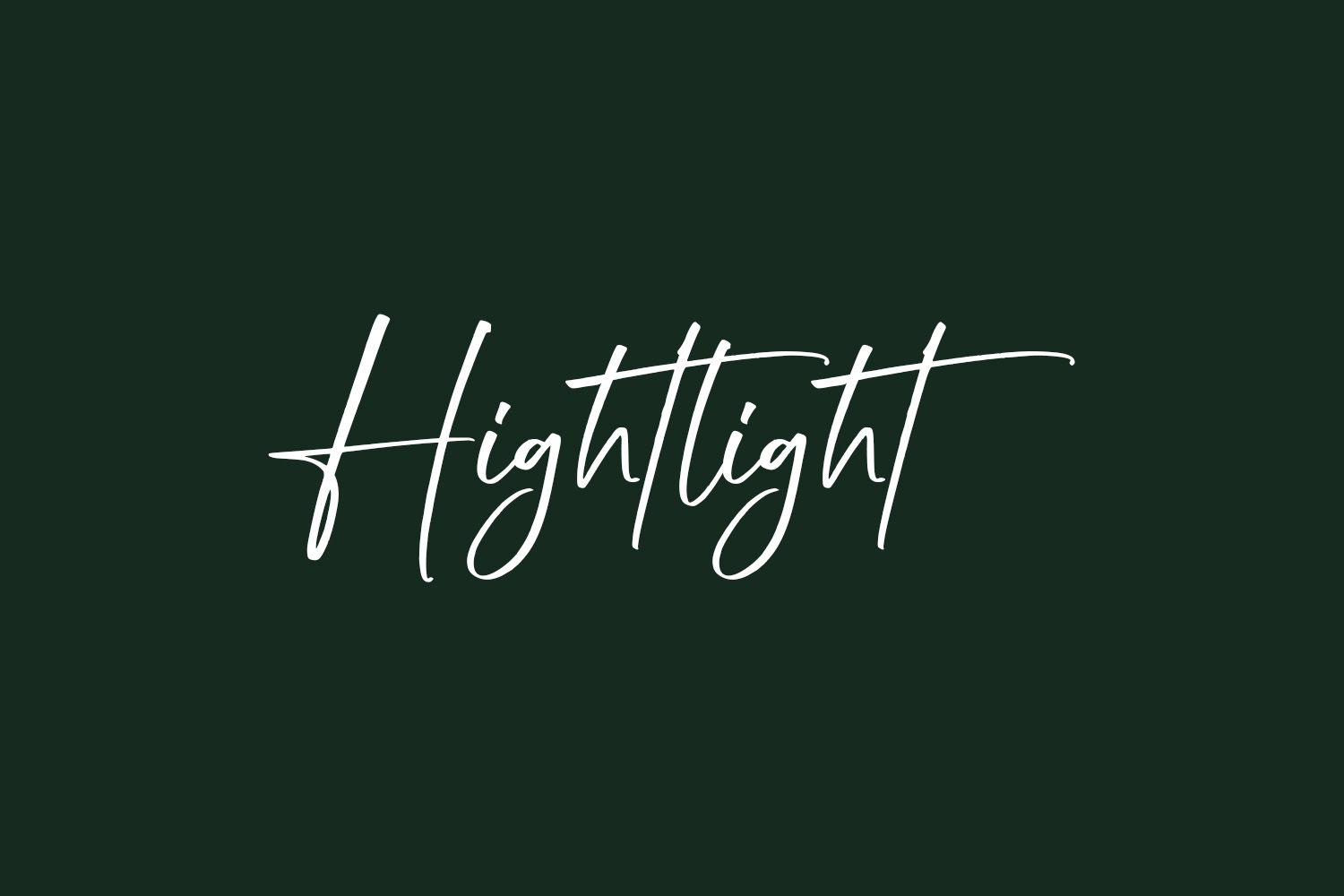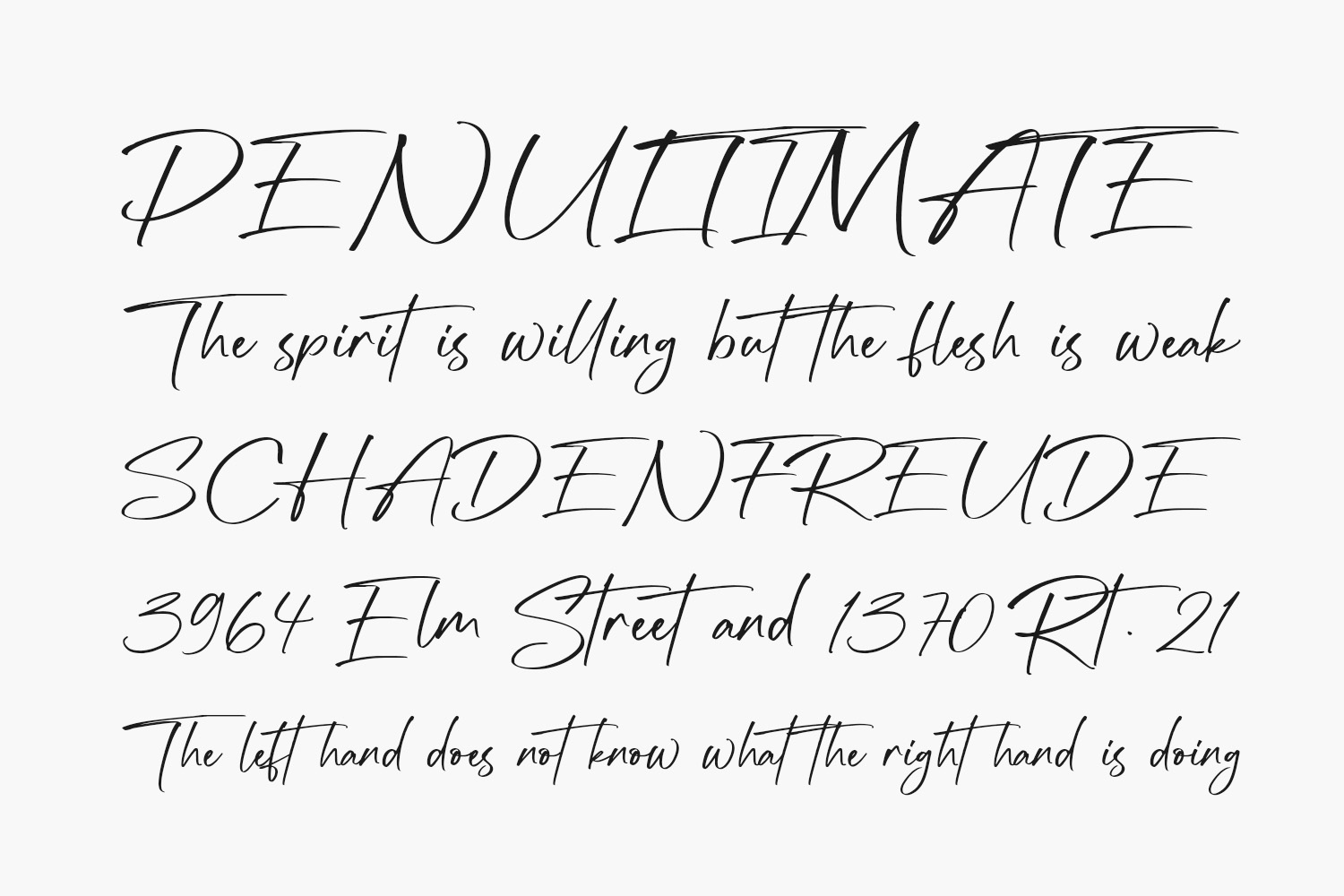
Hightlight Free Font is a relaxed handwritten font, featuring a casual and chic flair. It is perfect for branding, wedding invites, cards and so much more. Hightlight Free Font was designed by Hanzel Space and is free for personal use only. Please purchase the full version for commercial use.